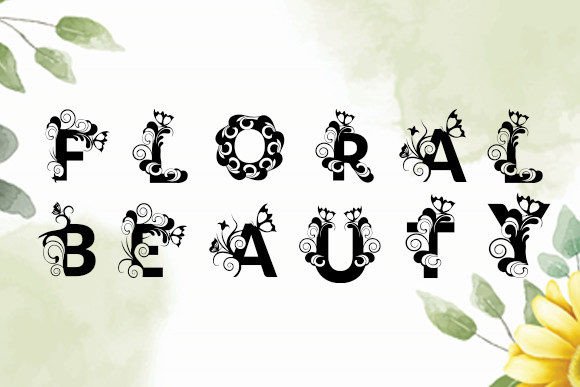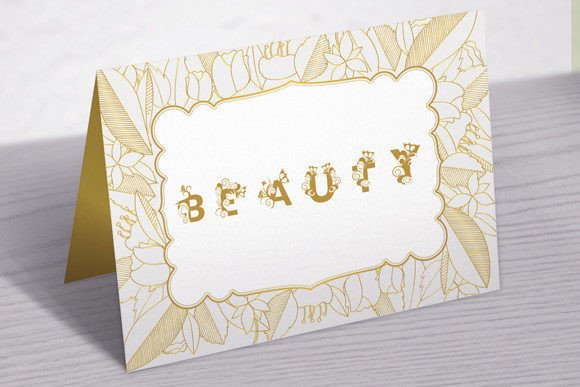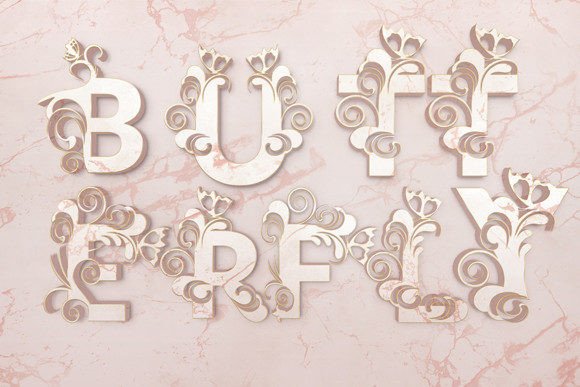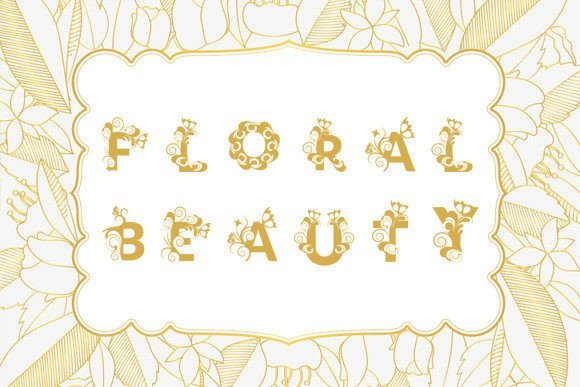
Introduction to Floral Beauty Font
Floral Beauty is an elegant all-caps decorative font with lovely ornaments.
Create stunning wedding invitations, beautiful stationary art, eye-catching social media posts, and cute greeting cards using its authentic feel .
Floral Beauty Font offers exceptional quality and versatility, making it a valuable addition to your design toolkit. Whether you’re creating for personal projects or commercial use, Floral Beauty Font delivers professional results.